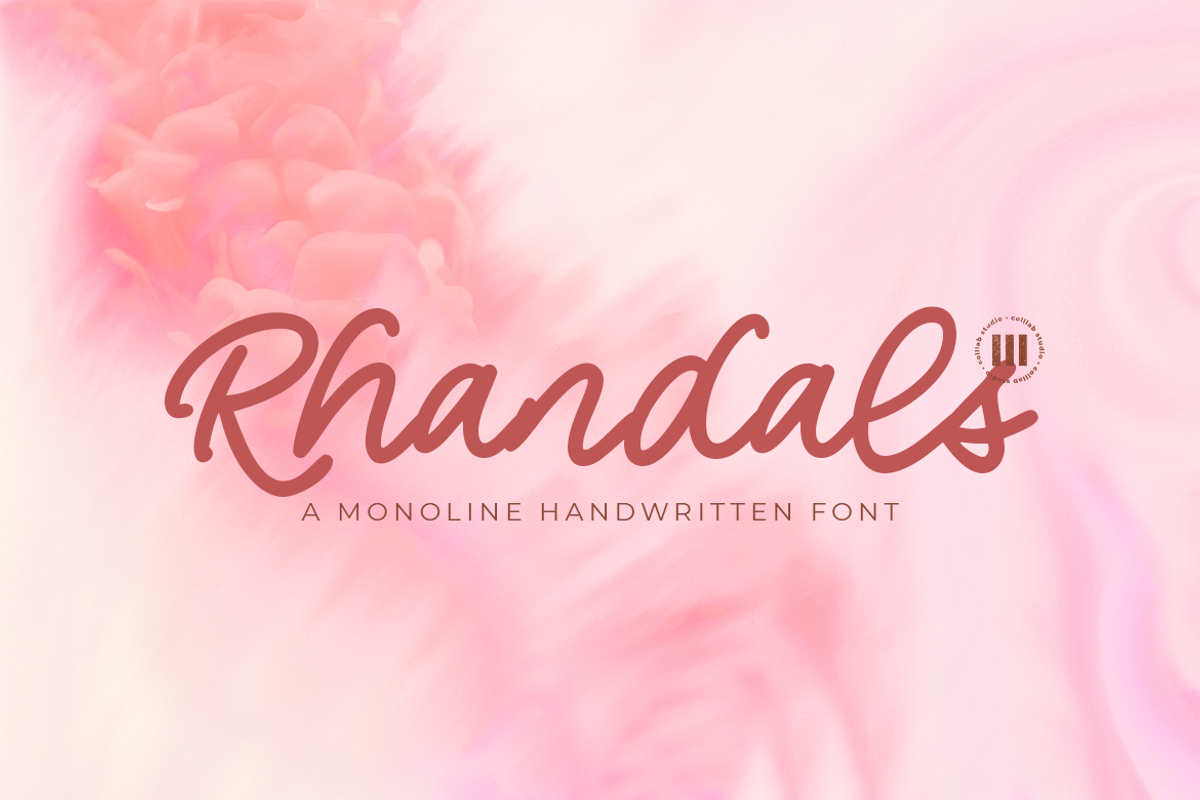
Rhandals | A Monoline Font Free Download is a sleek, minimalist monoline typeface that blends modern design with elegance. With clean, continuous lines and uniform stroke thickness, Rhandals is perfect for logos, branding, headlines, social media graphics, and minimalist design projects that require a clean, sophisticated feel.
Its simplicity makes it highly versatile for both large-scale display use and smaller, more subtle applications, providing balance and clarity in all types of design.